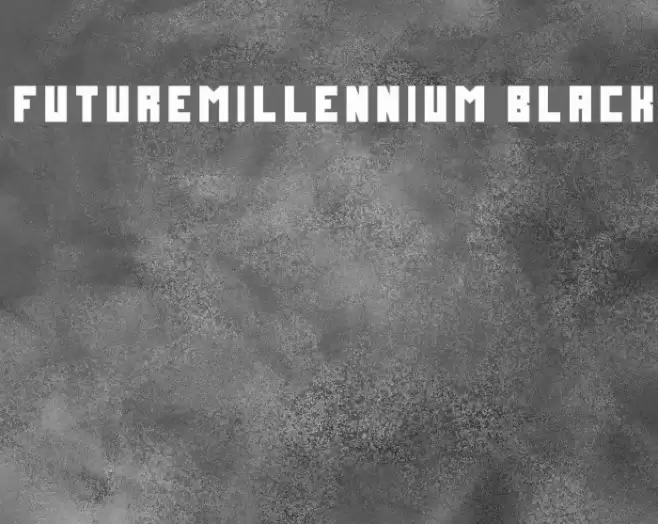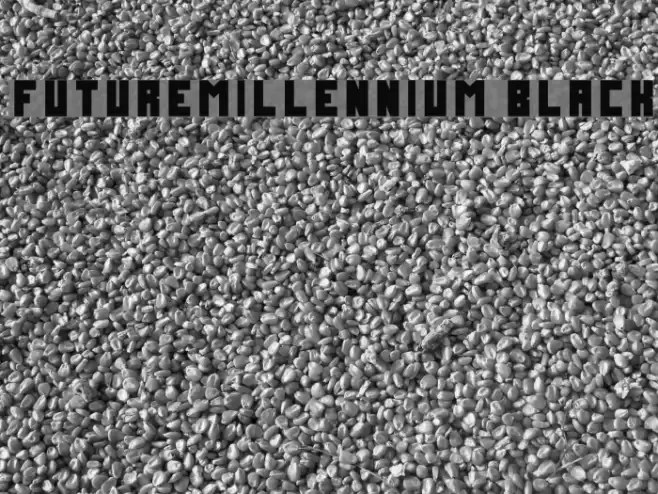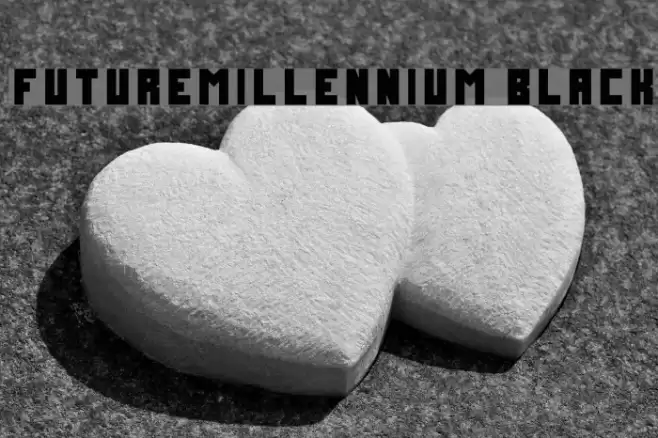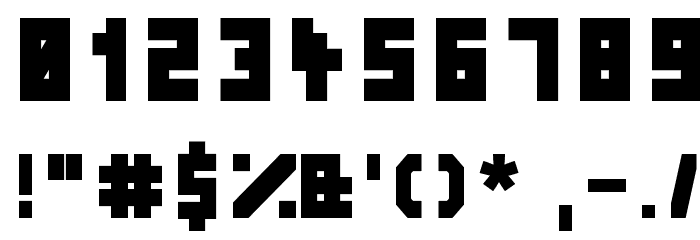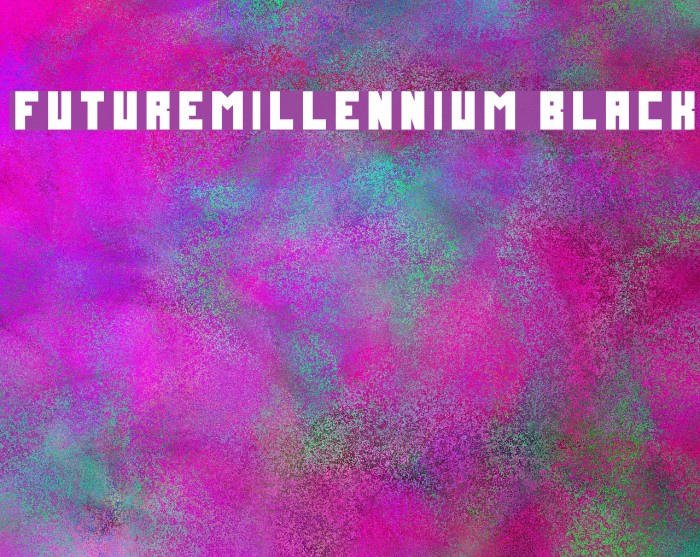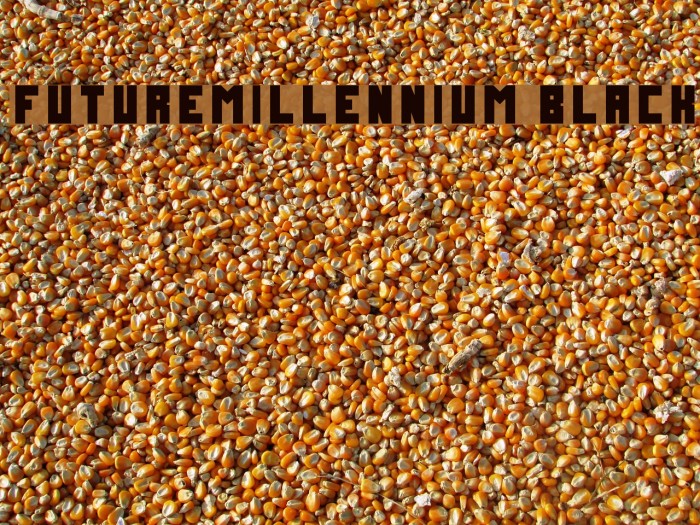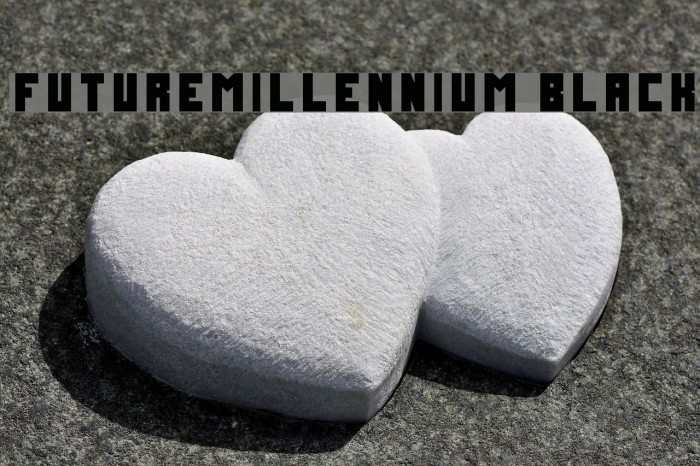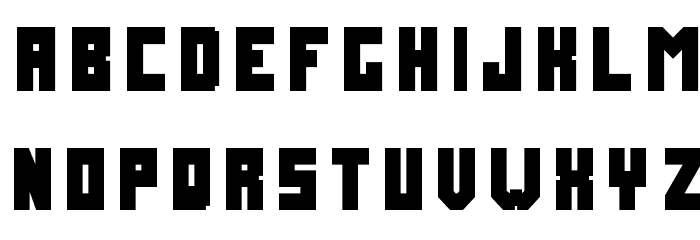
FutureMillennium Black Font
FutureMillennium Black Description
This font features a bold, geometric design with a strong presence. The characters are constructed with sharp, angular edges and a blocky appearance, giving it a futuristic and industrial feel. The uppercase and lowercase letters maintain a consistent height, contributing to a uniform look across the typeface. The numerals and special characters follow the same design principles, ensuring a cohesive style throughout. This font's distinct and assertive style makes it ideal for projects that require a modern and impactful visual statement.
A bold, geometric font with a futuristic and industrial design from Uncategorized fonts.
- Proposed Projects: Ideal for branding, posters, headlines, and any design requiring a modern, impactful look.